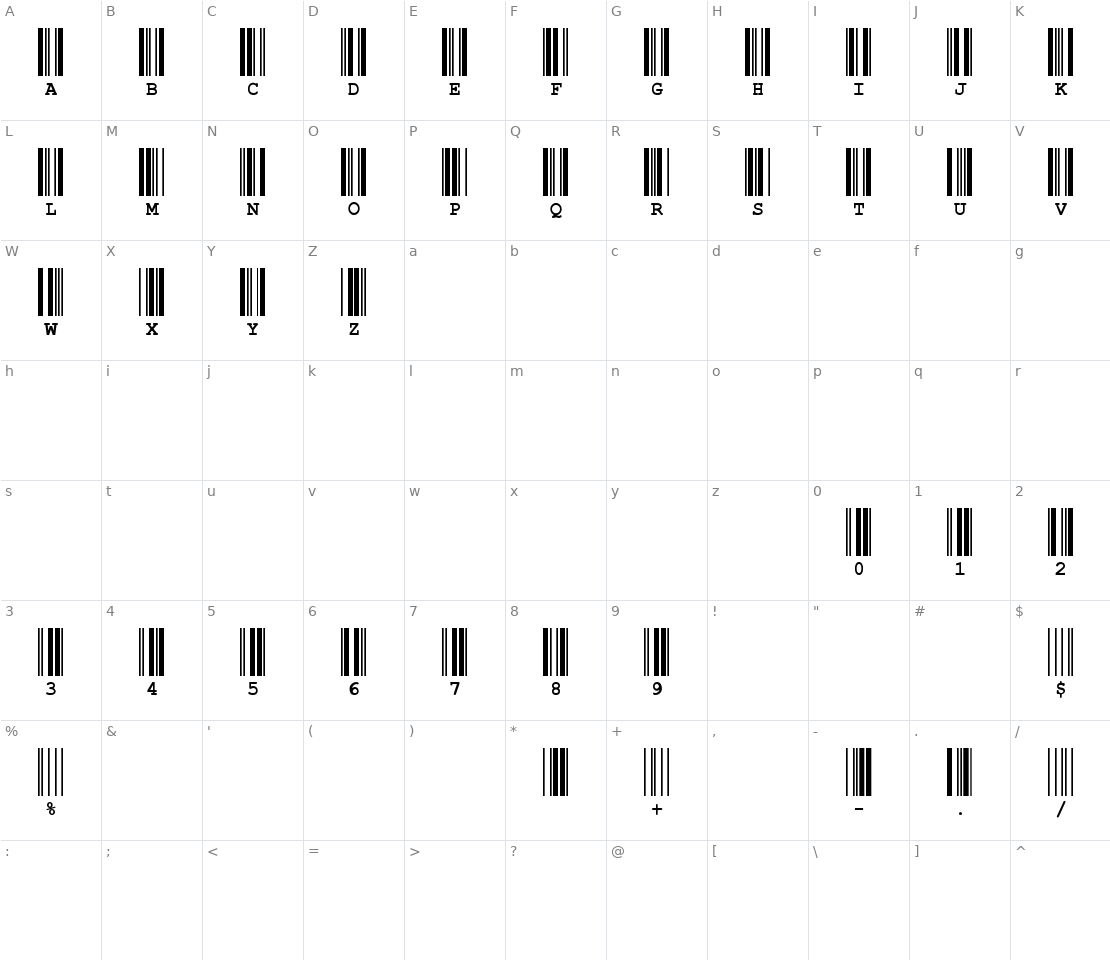
CIA Code 39
CIA Code 39 is a utility font that renders text as Code 39 barcodes, turning each character into a scannable symbol rather than a readable letterform. It's purely functional, designed for labeling, inventory systems, packaging mock-ups, or any project where you need actual barcode output without dedicated software. The monospaced structure keeps everything aligned and scanner-friendly.